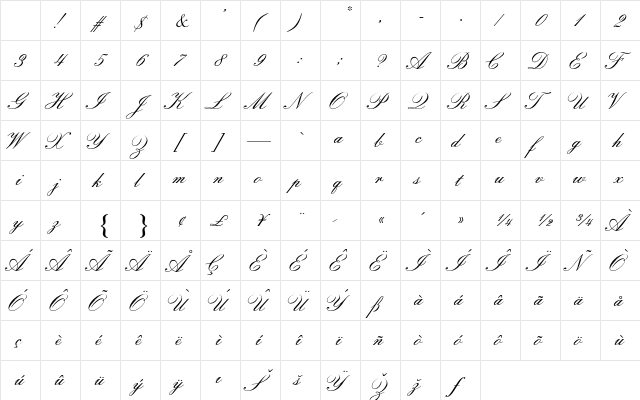
Complete Florentine Script II AT Regular glyph index. Displaying only characters natively supported by Florentine Script II AT Regular font.
Florentine Script II AT flows with the natural rhythm of handwritten lettering, making it ideal for designs that call for warmth and personal expression.
Font Pairing: Combine Florentine Script II AT with a simple geometric sans for maximum contrast - the tension between flowing curves and clean structure is a classic typographic pairing.
Pro Tip: Use Florentine Script II AT for short runs of text - names, titles, or taglines. Extended body copy in script faces tires the eye quickly.